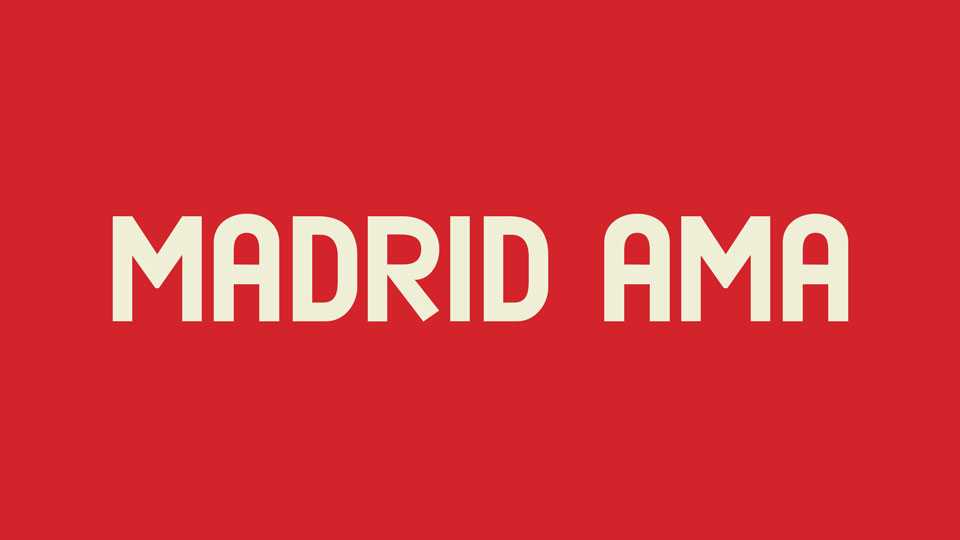
Download Madrid AMA font, a display typeface that comes from the magazine Mujeres, produced by the Madrid chapter of the Association of Antifascist Women (AMA).